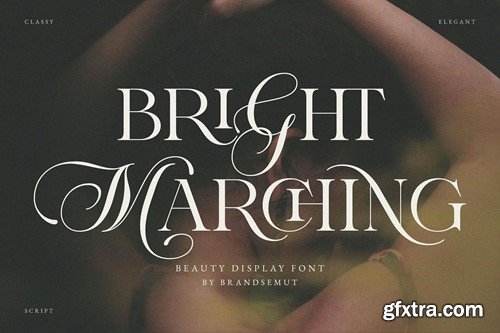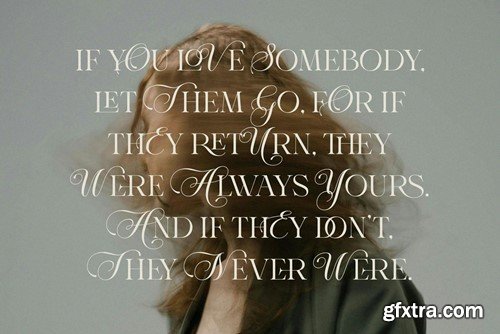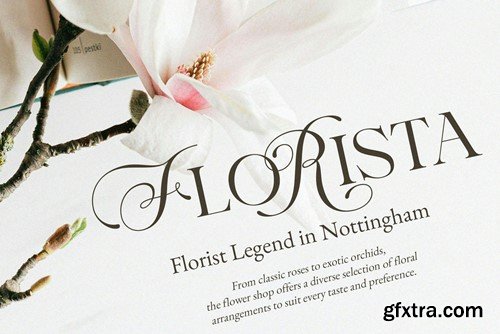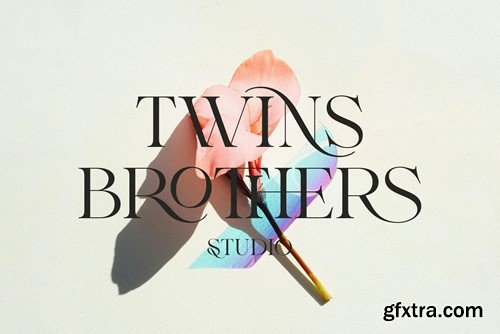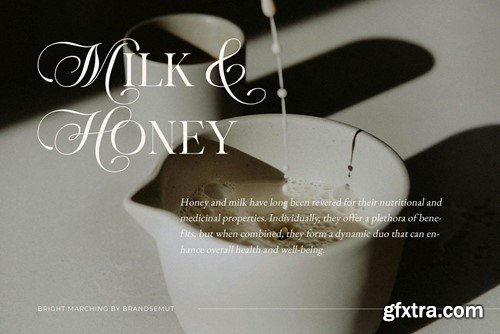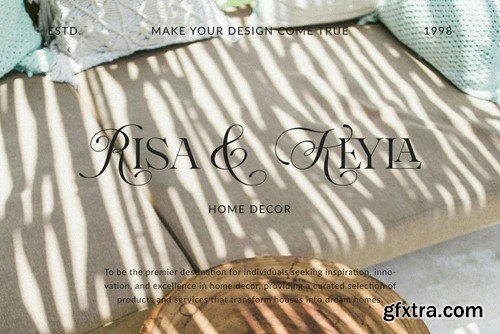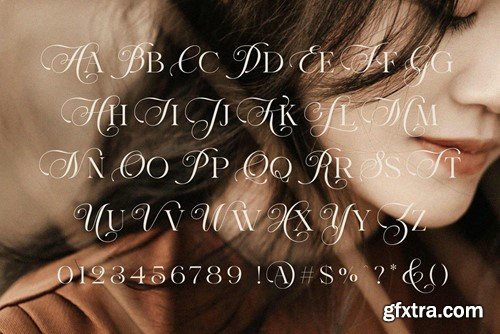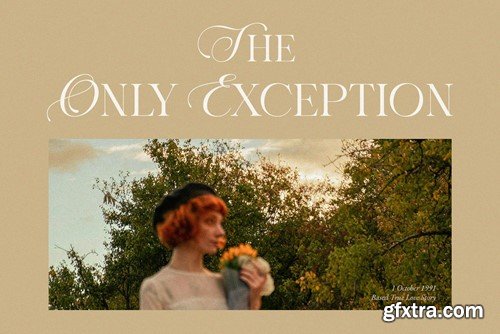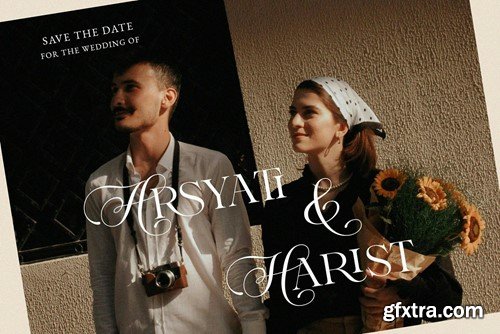
Bright Marching - Beauty Display Font 9ECEMJ6
Bright Marching - Beauty Display Font
Introducing Bright Marching Beauty Display Font. Bright Marching is a elegant and stylish display serif and script with rich stylistic alternates, best used as a display for headings, logos, branding, magazines, product packaging and invitations. Bright Marching equipped with Ligature and many Alternates and come with clean lines and smooth curves give any project an extra touch of class.